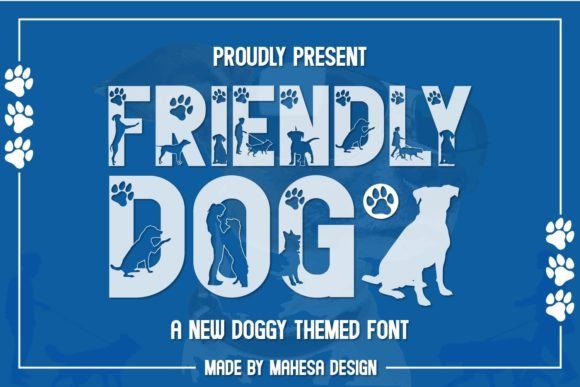
Journey into the realm of charming designs with Friendly Dog Font, an enchanting creation from the artistic haven of Mahesa Design. This delightful font is not merely a font; it's a gateway to a world of cheerfulness and warmth, ready to transform your digital creations into captivating expressions of joy.
With its playful and affectionate demeanor, Friendly Dog Font effortlessly captures the essence of canine companionship. Each letter dances across the screen like a tail wagging with excitement, inviting you to embrace the playful spirit within. Let your words resonate with the unwavering loyalty and unconditional love that dogs bring into our lives.
Embrace the endless possibilities that await you with Friendly Dog Font. Whether you're crafting heartfelt letters, designing playful invitations, adorning social media posts, or adding a touch of whimsy to your branding, this font is your trusty companion, ready to infuse your creations with charm and captivation.
Step into a world where cuteness reigns supreme, where every word you type blossoms into a testament of affection. Friendly Dog Font is the perfect choice for those seeking to convey messages of warmth, friendship, and unwavering support. Its playful nature effortlessly connects with audiences of all ages, making it an ideal font for projects targeting families, pet lovers, and anyone who appreciates a touch of lightheartedness.
Make way for a font that speaks to the heart, a font that transforms the mundane into the extraordinary. With Friendly Dog Font, your creative pursuits will take on a life of their own, captivating audiences and leaving an indelible mark on their minds. Experience the magic of a font that celebrates the bond between humans and their beloved canine companions.